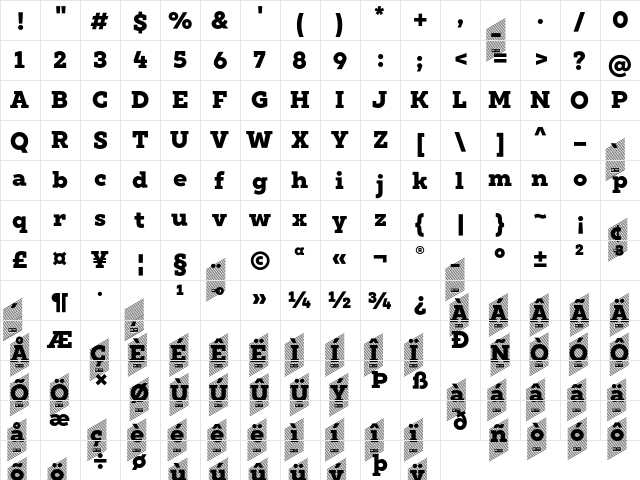
XXII Geom Slab DEMO Heavy
Design Context for XXII Geom Slab DEMO Typeface
XXII Geom Slab DEMO features prominent, blocky serifs that give it a confident, grounded presence — equally at home in editorial settings and bold branding work.
Works well in editorial design, news publishing, impactful branding, and poster typography.
Pro Tip: Try XXII Geom Slab DEMO set tight in headlines for a classic editorial feel. Its slab serifs create strong horizontal rhythm that anchors a page layout.